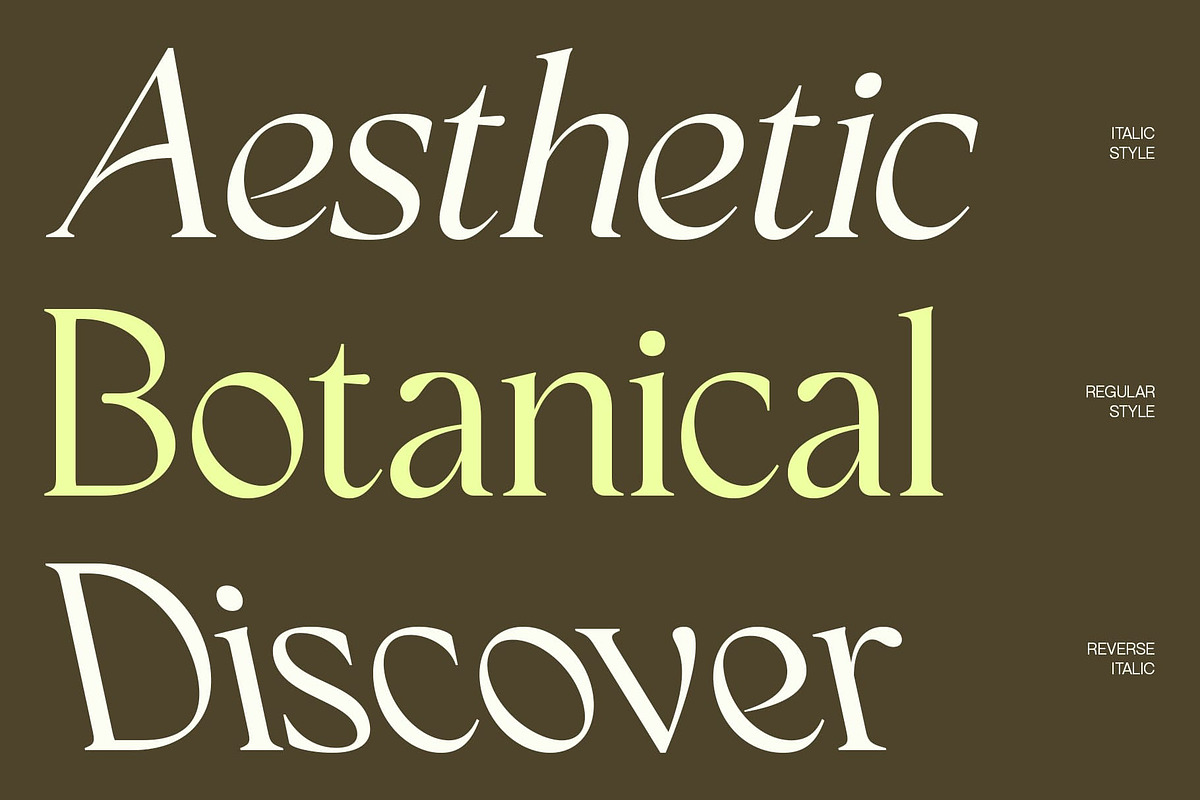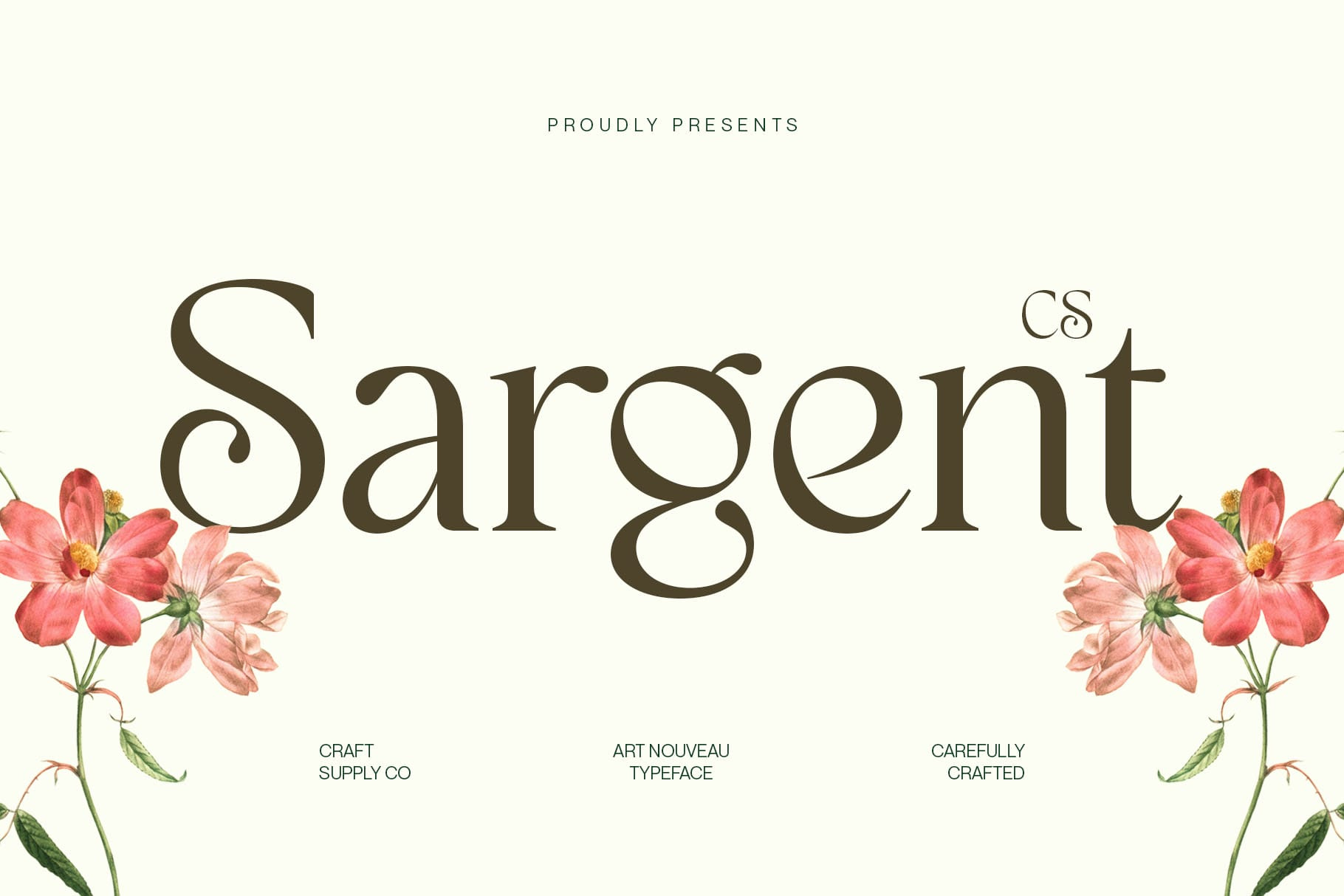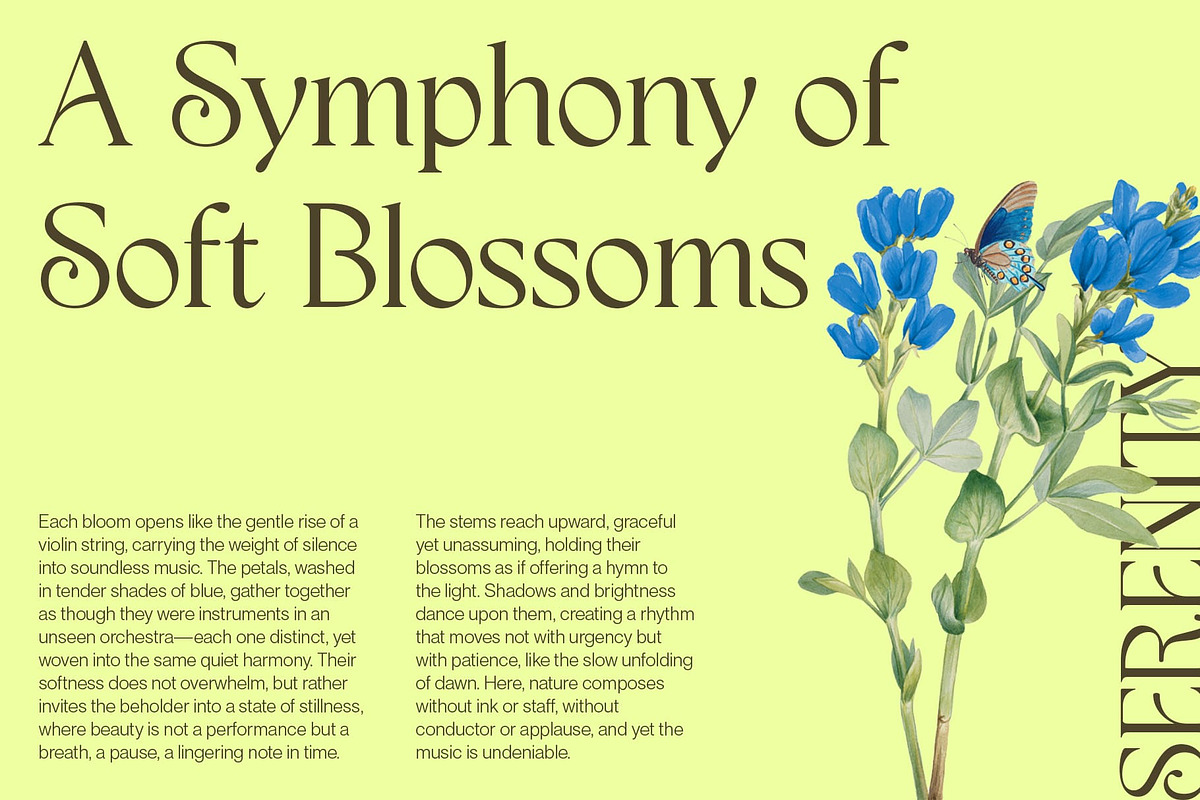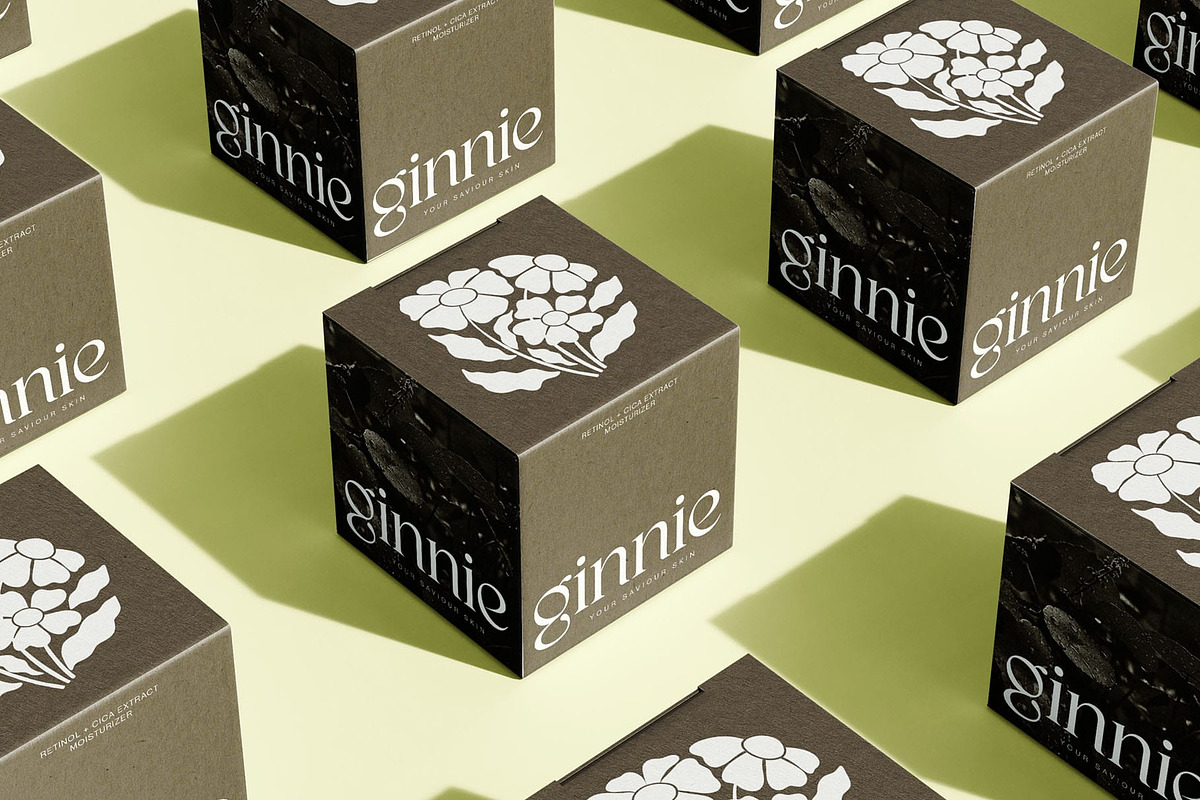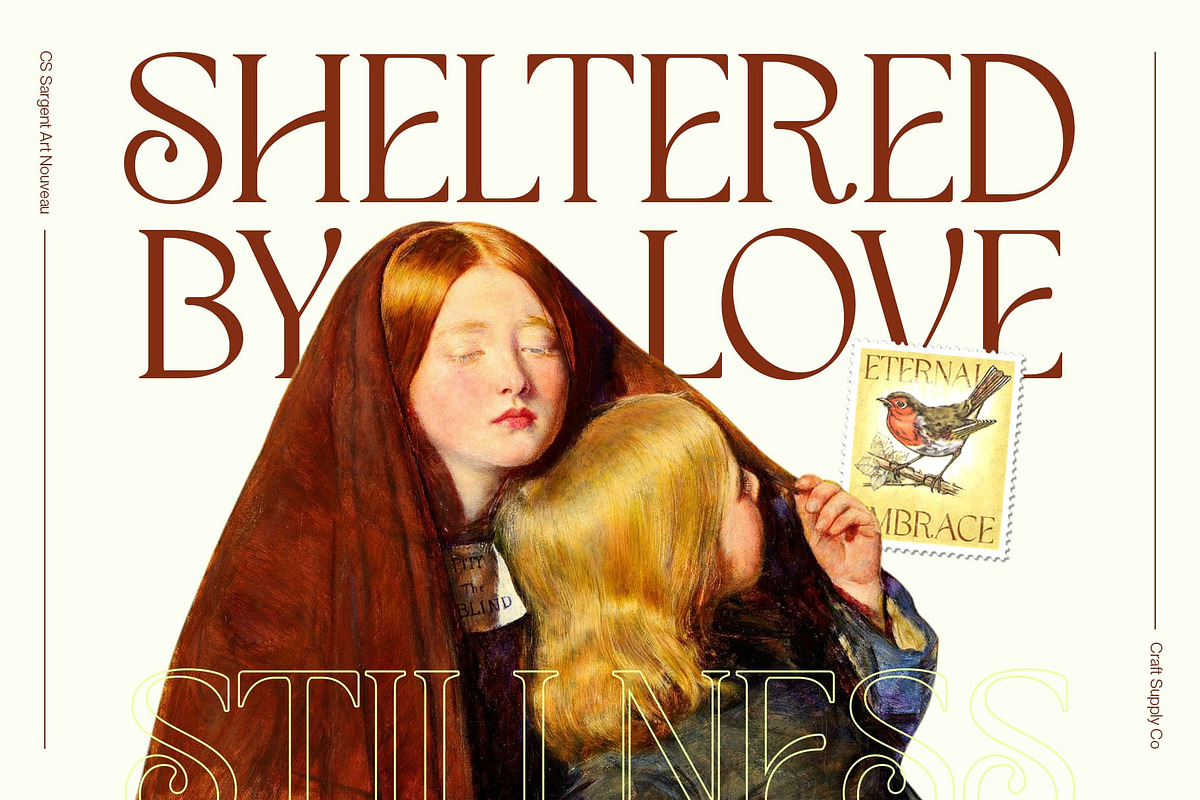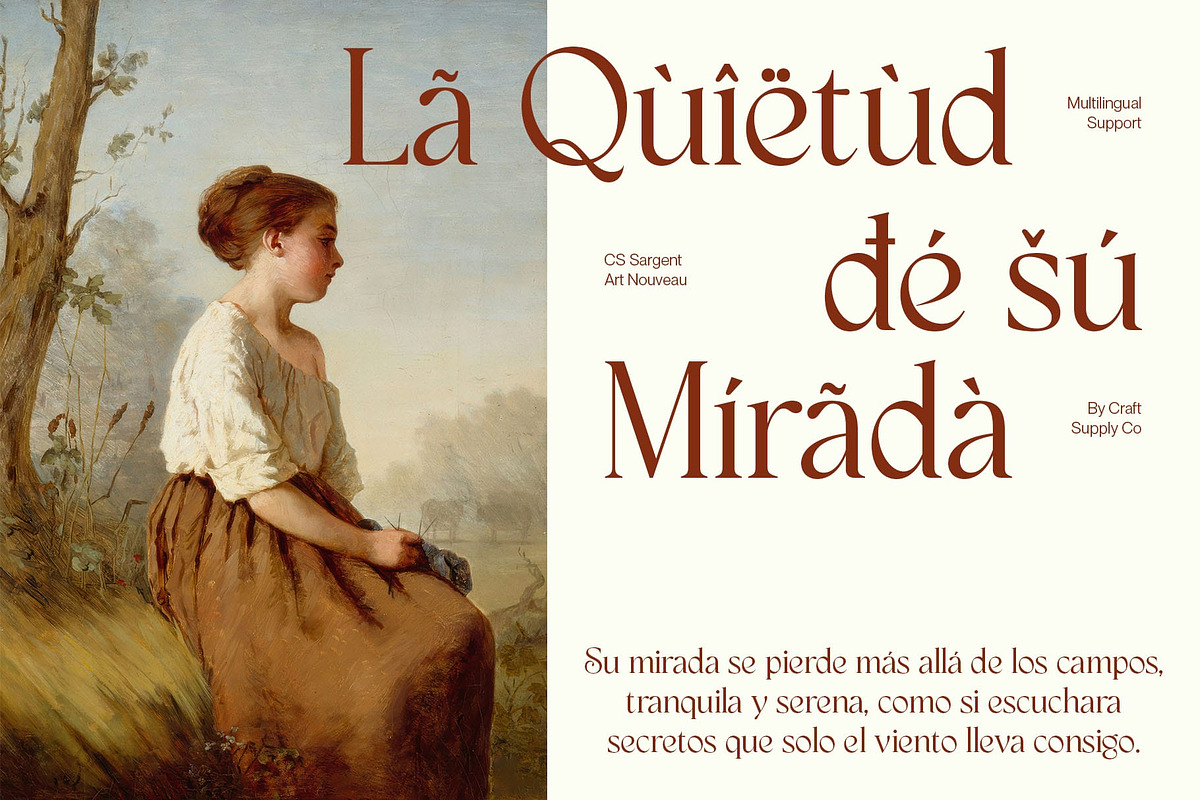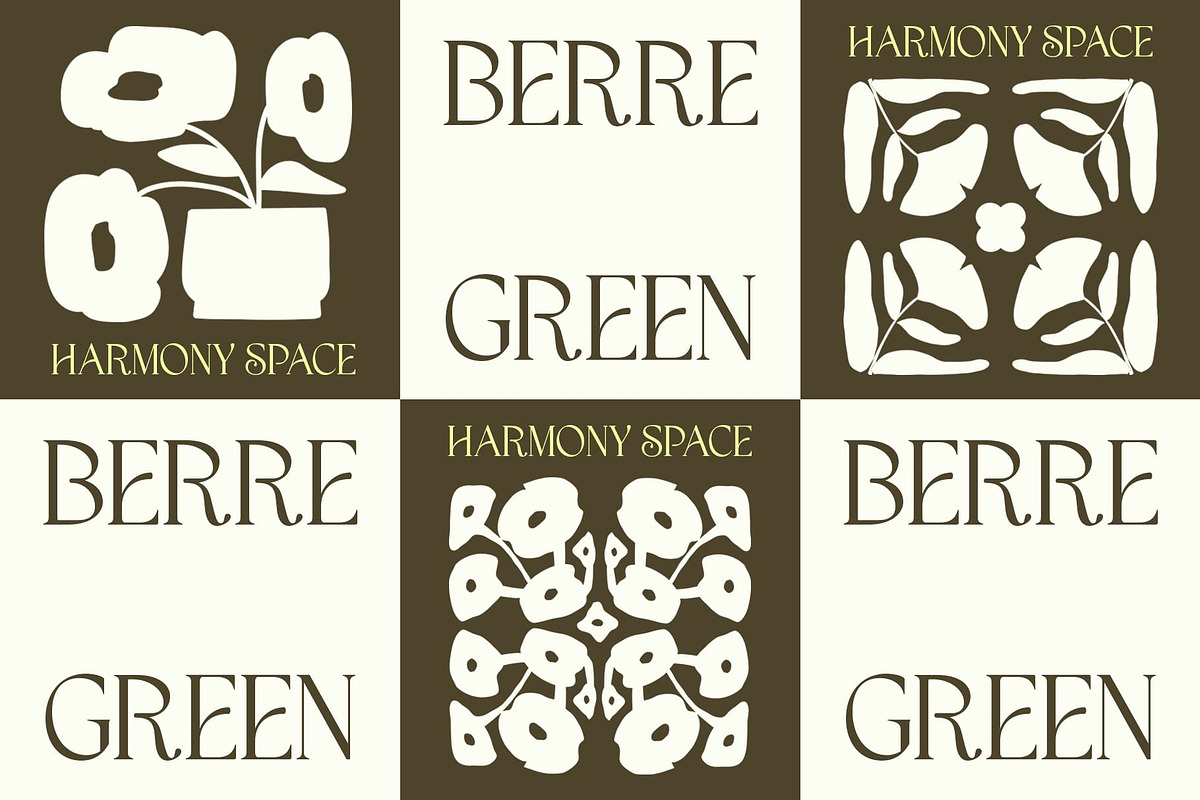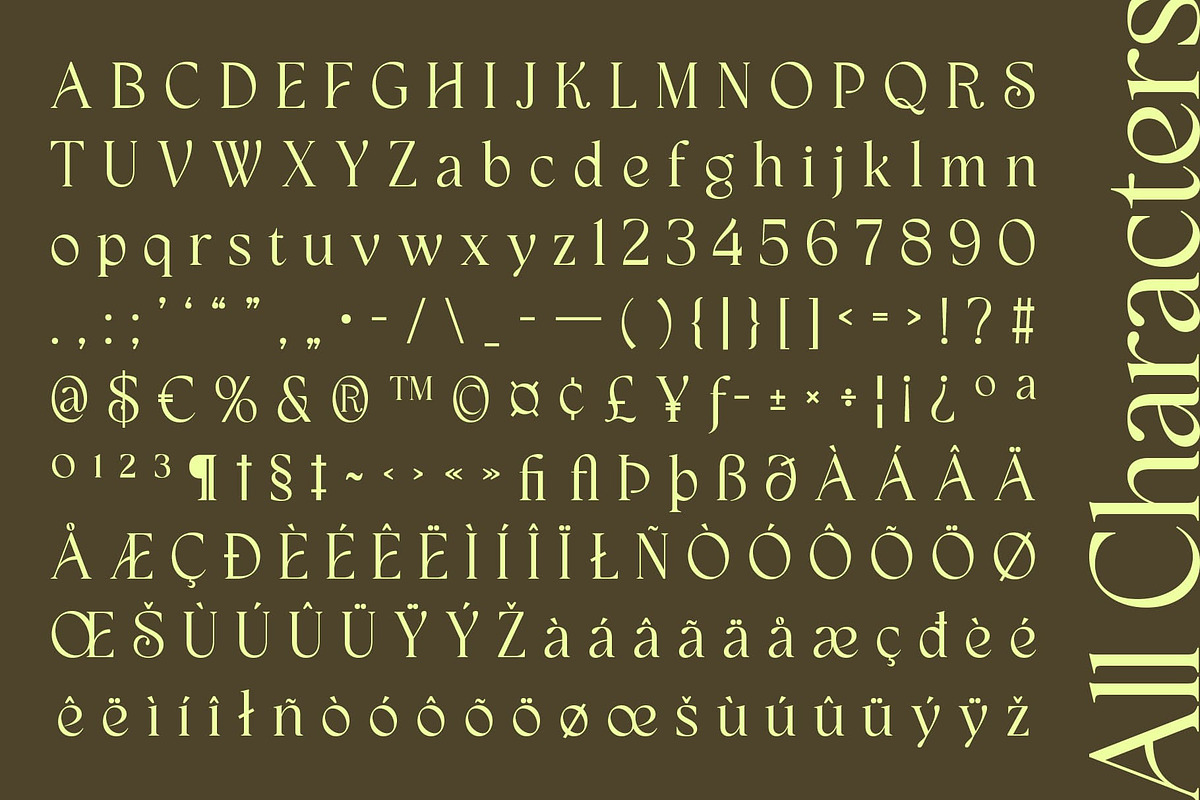
CS Sargent – Art Nouveau Font
CS Sargent – Art Nouveau Elegant Serif with Flowing Beauty
Refined Art Nouveau Style
CS Sargent draws inspiration from the timeless beauty of Art Nouveau, featuring graceful curves and delicate lines that echo organic forms. Its artistic shapes capture the elegance of the era while giving modern designers a font that feels both classic and stylish.
Handmade Artistic Character
Enhanced with a subtle drawn, handmade touch, CS Sargent carries a unique charm that sets it apart from traditional serif fonts. Each detail feels carefully crafted, offering a balance of refinement and artistic individuality. This handcrafted quality adds depth and authenticity to any design.
Perfect for Branding and Posters
With its elegant flow and sophisticated presence, CS Sargent shines in branding projects, poster design, and editorial layouts. It brings a sense of class and beauty to logos, headlines, and advertising materials, making every word feel like a visual statement.
Versatile and Sophisticated Design
Beyond its Art Nouveau roots, CS Sargent adapts well to both creative and professional contexts. Whether used for luxury branding, cultural projects, or artistic editorials, it delivers sophistication and beauty while keeping a unique and approachable style.
- CS Sargent Regular
- CS Sargent Italic
- CS Sargent Reverse Italic